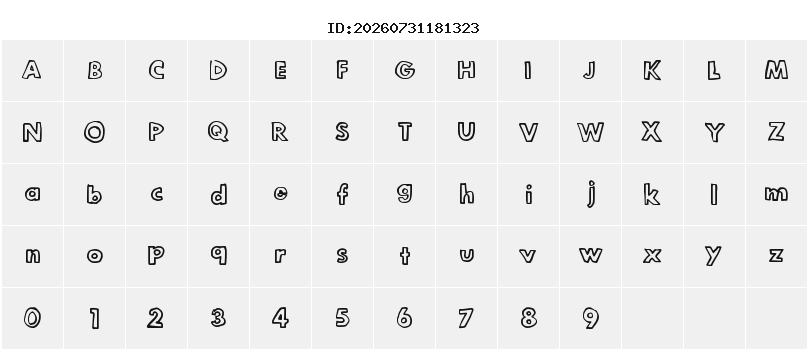
• Font Name: LegitOutline
• Designer: Max Infeld
• Manufacturer: Xerographer Fonts
• Description: This font at in Chico,CA outline legit felt marker handdrawn hand drawn
About LegitOutline.ttf
LegitOutline.ttf is a modern, elegant sans-serif font designed for ultimate readability and visual harmony. Perfect for branding, headlines, web design, and print materials.